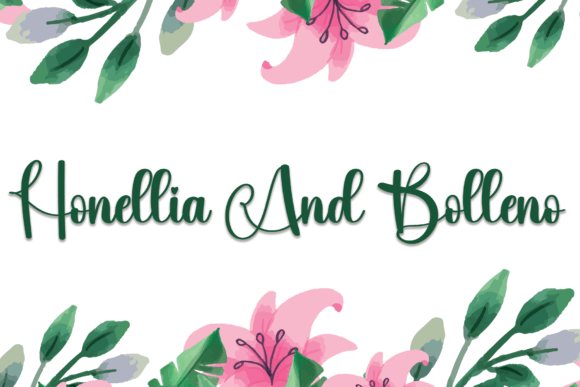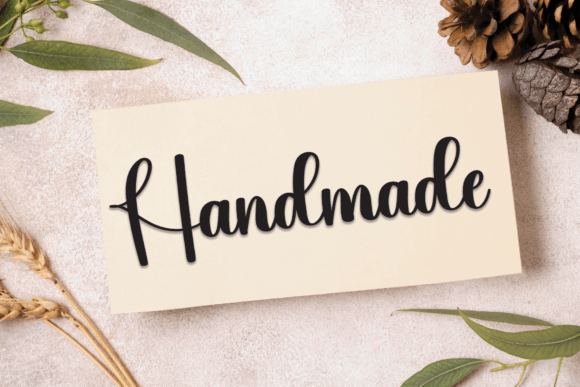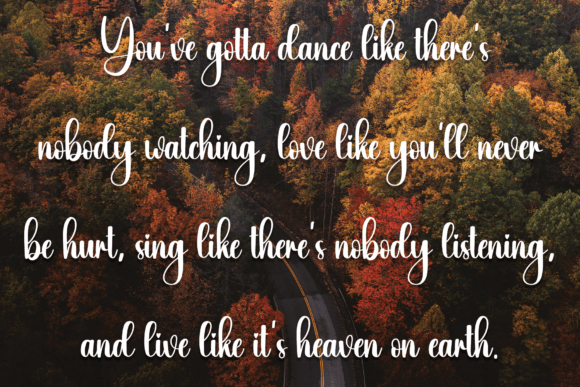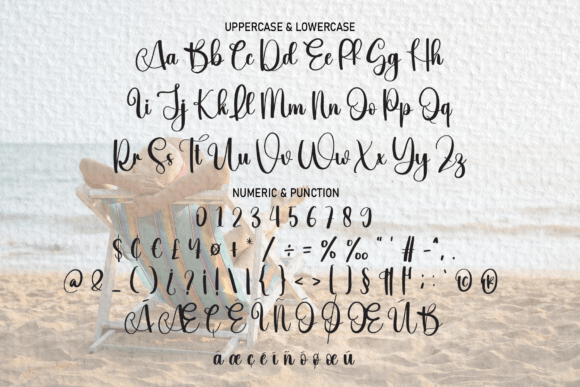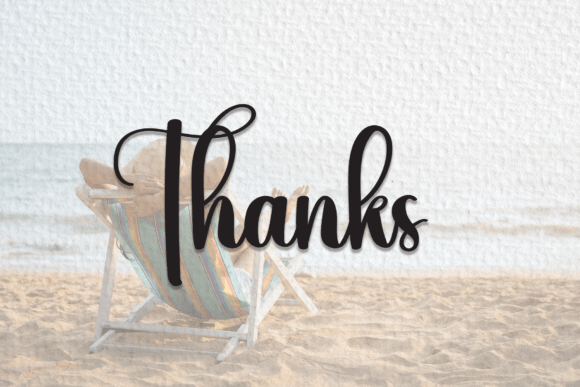
Saturday Font
Add Graceful Elegance with Saturday Font
The Saturday font is a graceful and modern calligraphic script designed to bring rhythm and class to your creative projects. Its beautiful flow and sophisticated style make it ideal for crafting gorgeous, classy compositions. Whether you’re working on branding projects, invitations, web graphics, or cards, Saturday elevates your designs with elegance.
Perfect for Branding, Invitations, and Digital Design
The Saturday font excels in a variety of design contexts including business branding, wedding invitations, social media graphics, greeting cards, and more. Its stylish strokes and balanced letterforms give your projects a polished and refined appearance that resonates with sophistication.
A Modern Calligraphy Script Full of Rhythm
Each character in the Saturday font is meticulously crafted to capture the essence of modern calligraphy, delivering a smooth rhythm and visual harmony. The font’s flowing curves and clean lines enhance readability while adding a touch of luxury to your typography.
Despite its decorative and elegant style, the Saturdayfont maintains excellent readability at various sizes. Whether used for headlines, logos, or smaller text elements, it balances beauty with clarity, making it a versatile choice for many creative projects.
Make Your Designs Stand Out with Class